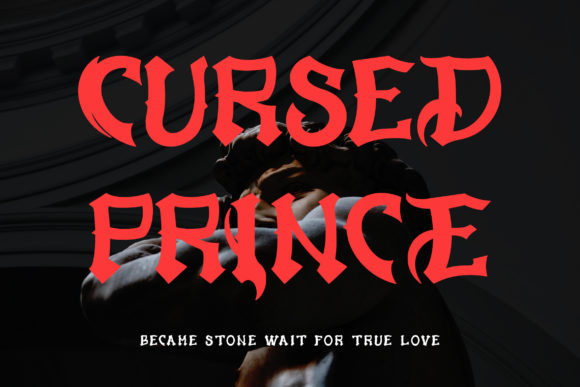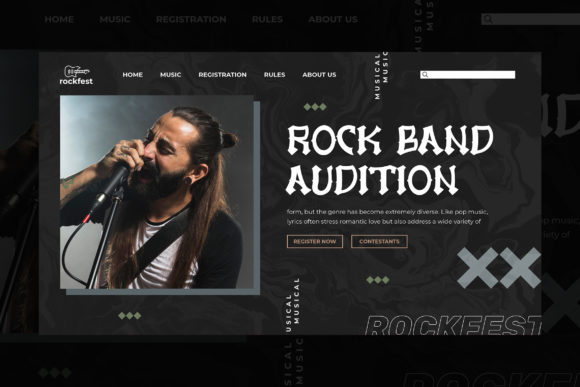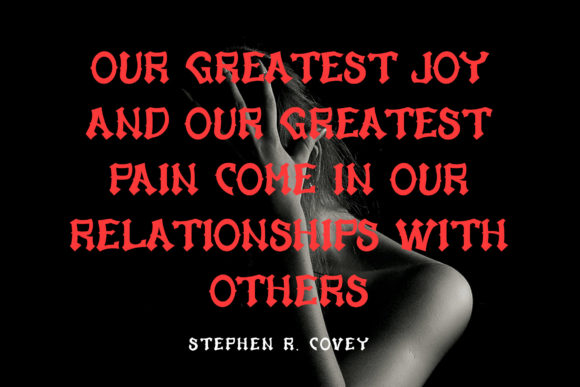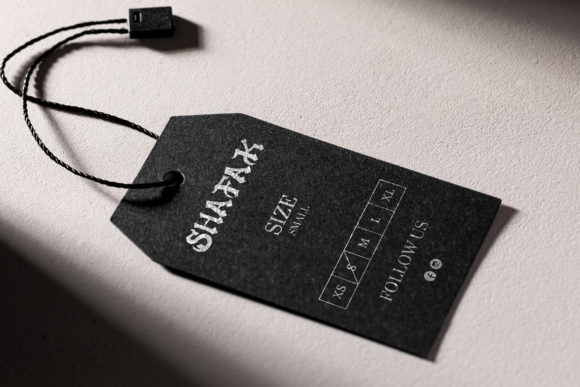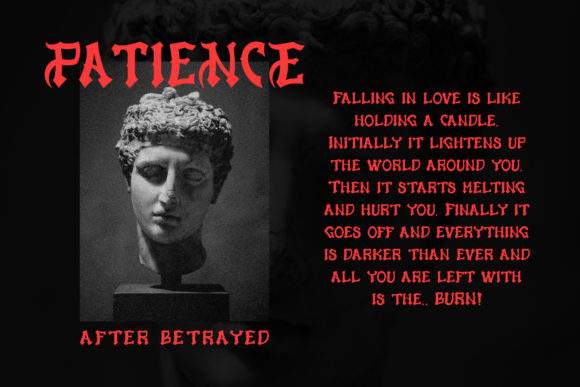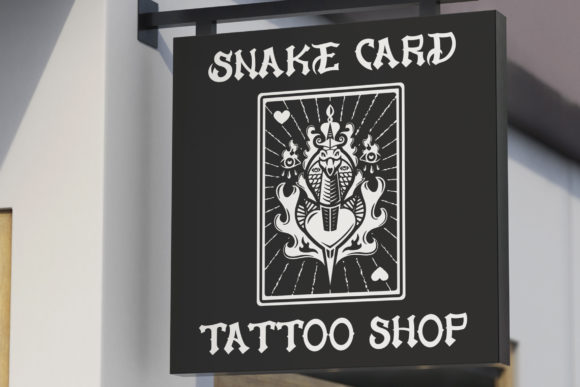
Introduction to Nectura Font
As you sit in front of your computer, surrounded by endless design resources and fonts, you’re suddenly hit with a spark of creativity – a project idea that screams for something bold, eerie, and unforgettable. And that’s where Nectura Font comes in, a high-quality, creepy-looking display font that’s sure to take your design to the next level.
| 👤 Author | Arendxstudio |
Whether you’re working on a Halloween-themed project or a crafty idea that needs a touch of macabre flair, Nectura Font is the perfect design resource to elevate your creativity. Its detailed, intricate design makes it a valuable addition to any designer’s toolkit, offering endless possibilities for unique and captivating visual effects.
Key Features of Nectura Font
- High-quality design resource suitable for creative projects, with a unique and elegant style.
- Features a transparent background, allowing for seamless integration into designs with complex backgrounds.
- Designed to be highly legible, making it perfect for use in a variety of contexts, from body text to headlines.
- Includes a range of weights and styles, from light to bold, to provide flexibility and versatility in your design projects.
Honest Review: Nectura Font
I recently stumbled upon the Nectura Font, and I must say it’s a great addition to my design resource arsenal. As a designer, I’m always on the lookout for high-quality fonts that can elevate my creative projects.
- ✨ Elegant and modern design aesthetic, perfect for contemporary branding and design projects.
- ✨ A wide range of weights and styles, allowing for a high degree of customization and flexibility.
- ✨ Transparent background, allowing for seamless integration with complex designs and compositions.
- ⚠️ Limited language support, which may be a concern for designers working on international projects.
- ⚠️ Some users may find the font’s unique design style challenging to read in certain contexts.
Overall, I’m impressed with the Nectura Font’s versatility and style. While it may not be perfect for every project, it’s an excellent choice for designers seeking a modern and sophisticated font solution.
Nectura Font is commonly used in creative projects that require a high-quality, elegant font. Some common use cases include:
- Brochures and marketing materials